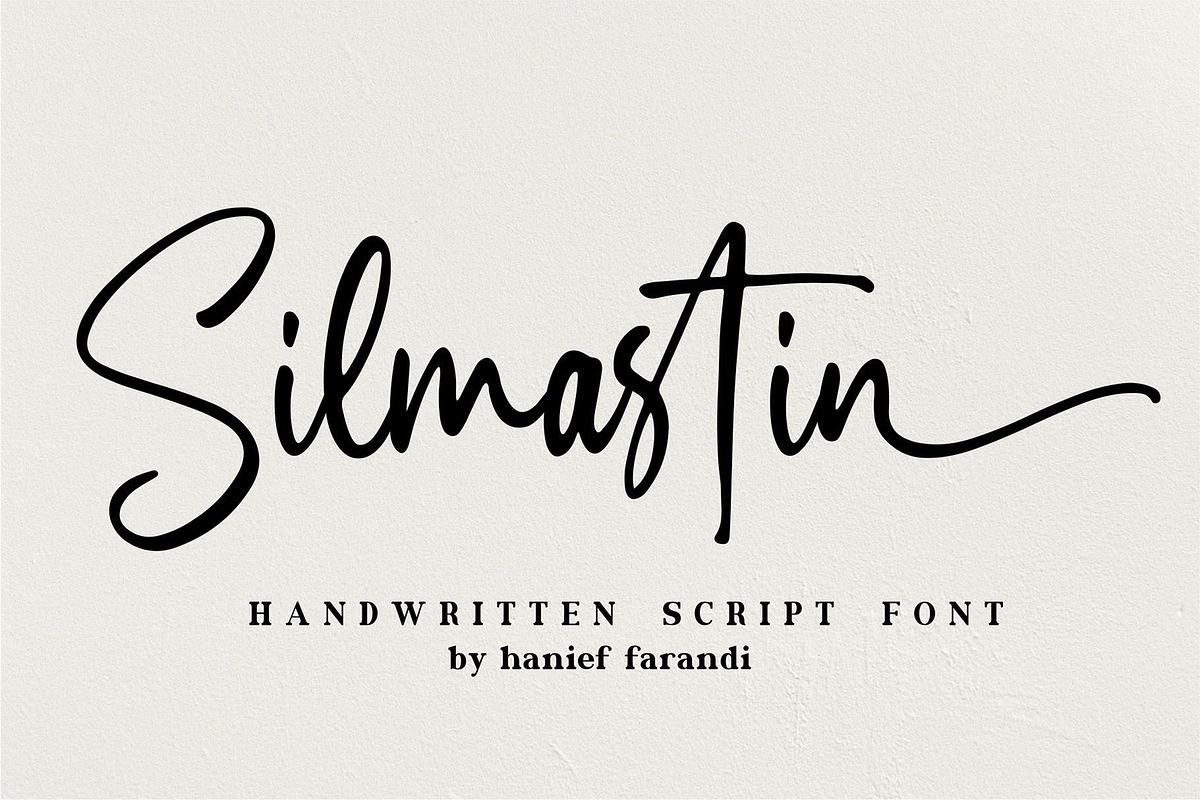
The Silmastin - Handwritten Script Font Free Download is a beautiful and elegant script typeface that mimics the natural flow of handwriting. Perfect for wedding invitations, branding, social media posts, logos, and greeting cards, this font adds a personal and artistic touch to your designs.
With its smooth curves and sophisticated style, Silmastin brings a refined, yet casual feel to any project. It includes uppercase and lowercase letters, numbers, punctuation, and multilingual support, making it versatile for various creative applications.